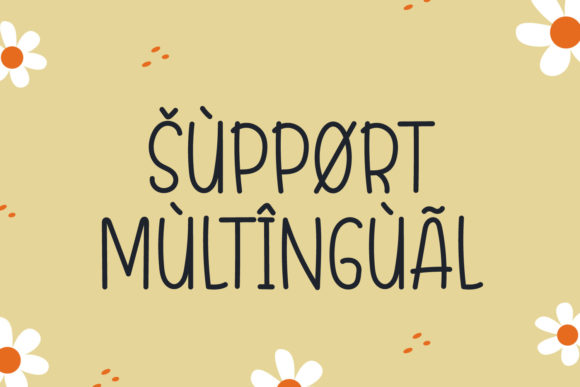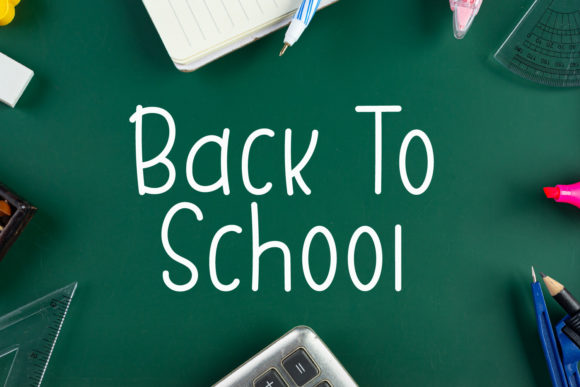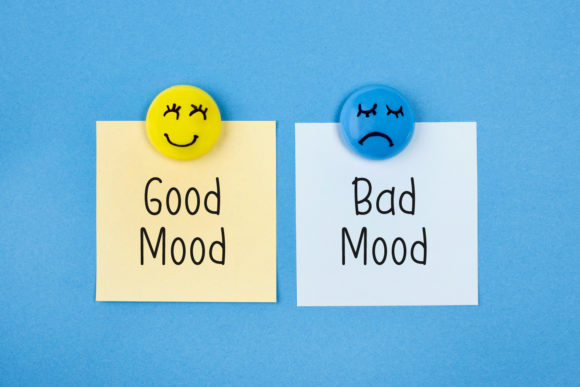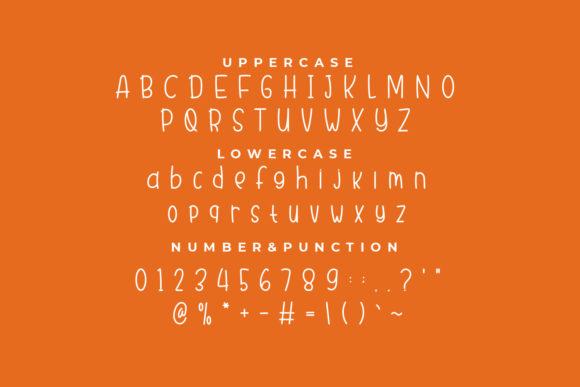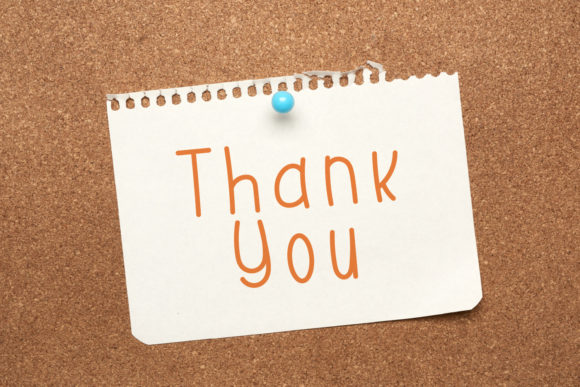
Introducing Future Line Font: The Ultimate Choice for Creative Designs
Are you a designer, craftsperson, or creative enthusiast looking for a font that can add a touch of beauty and personality to your projects? Look no further than Future Line Font, a thin, cute, and friendly handwritten font that’s perfect for a wide range of applications. In this article, we’ll explore the features and benefits of Future Line Font, and why it’s an excellent choice for cartoon-related designs, children’s games, quotes, titles, brand names, book covers, posters, and more.
What is Future Line Font?
Future Line Font is a unique and charming handwritten font that’s designed to bring a sense of playfulness and friendliness to your designs. Its thin lines and delicate curves make it an ideal choice for projects that require a touch of elegance and sophistication. Whether you’re creating a children’s book, a cartoon, or a brand identity, Future Line Font is sure to impress.
Key Features of Future Line Font
- Thin and delicate lines: Future Line Font features thin lines that give it a light and airy feel, making it perfect for designs that require a touch of subtlety.
- Cute and friendly appearance: The font’s playful curves and rounded edges give it a cute and friendly appearance that’s sure to appeal to a wide range of audiences.
- Handwritten style: Future Line Font has a distinctly handwritten style that adds a personal touch to your designs.
- Versatile: This font is suitable for a wide range of applications, from cartoon-related designs to children’s games, quotes, titles, brand names, book covers, posters, and more.
Use Cases for Future Line Font
Future Line Font is an incredibly versatile font that can be used in a variety of creative projects. Here are some use cases to get you started:
- Cartoon-related designs: Future Line Font is perfect for creating cartoon characters, titles, and logos that require a playful and friendly touch.
- Children’s games: This font is ideal for creating game titles, instructions, and other text elements that require a fun and engaging appearance.
- Quotes and titles: Future Line Font is a great choice for creating inspirational quotes, titles, and headings that require a touch of elegance and sophistication.
- Brand names: This font can be used to create unique and memorable brand names that stand out from the crowd.
- Book covers: Future Line Font is perfect for creating eye-catching book covers that require a touch of whimsy and playfulness.
- Posters: This font can be used to create stunning posters that require a bold and attention-grabbing appearance.
Why Choose Future Line Font?
- Unique and distinctive: Future Line Font has a unique and distinctive appearance that sets it apart from other fonts.
- Easy to read: Despite its thin lines, Future Line Font is incredibly easy to read, making it perfect for body text and other applications where readability is key.
- Customizable: This font can be easily customized to suit your specific design needs, from changing the color and size to adding effects and textures.
In conclusion, Future Line Font is an excellent choice for designers, craftspersons, and creative enthusiasts looking for a font that can add a touch of beauty and personality to their projects. Its unique and distinctive appearance, ease of readability, and customizability make it an ideal choice for a wide range of applications. Whether you’re creating cartoon-related designs, children’s games, quotes, titles, brand names, book covers, posters, or just any creation that requires a touch of beauty, Future Line Font is sure to impress.